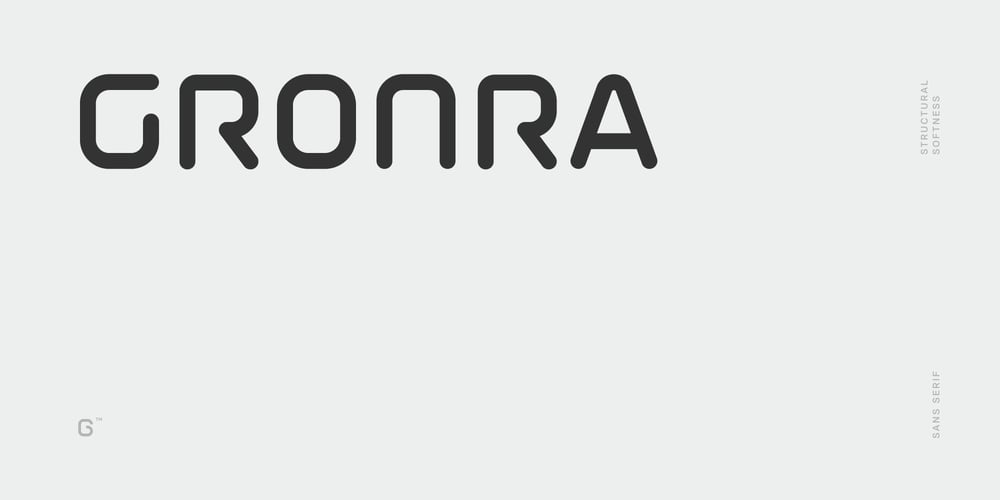
Gronra Font Family was designed by Andrew Seah and published by Baqoos. Gronra contains 5 styles and family package options. Gronra is a structural softness linear sans apt for headline, editorial, branding, packaging, printed materials and typographic applications. 200+ glyphs with ligatures and fractions provided in opentype .otf and .woff format.